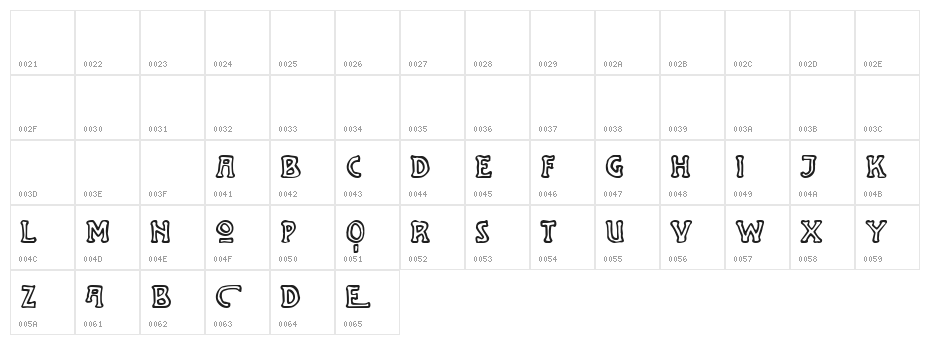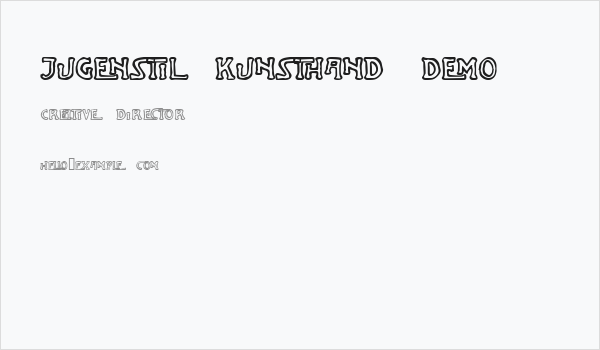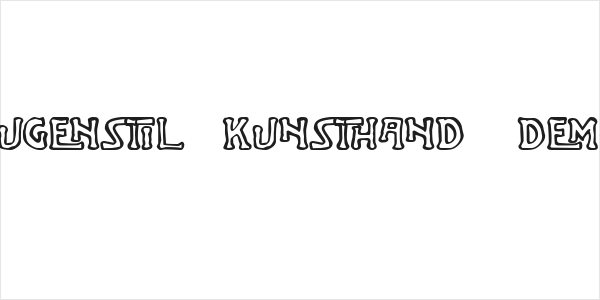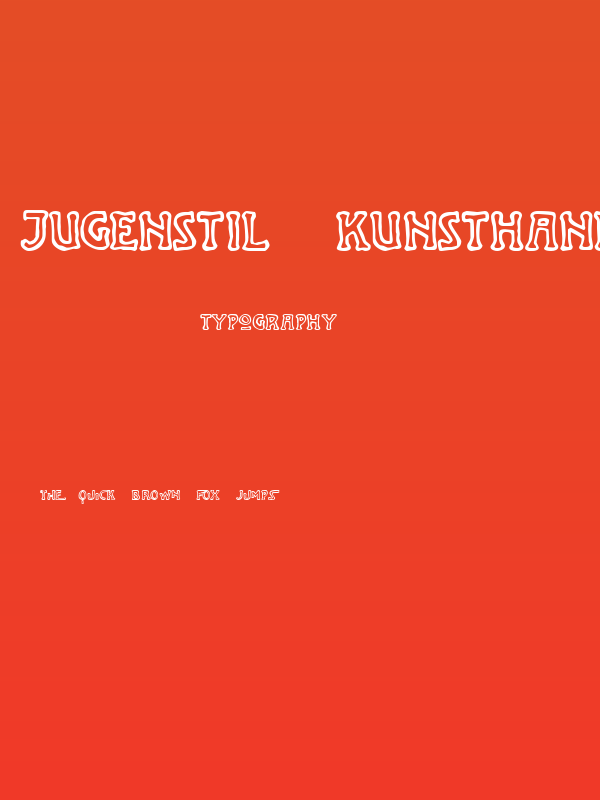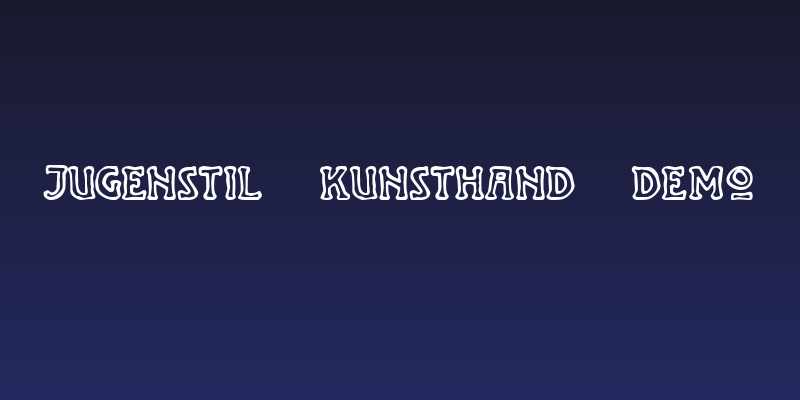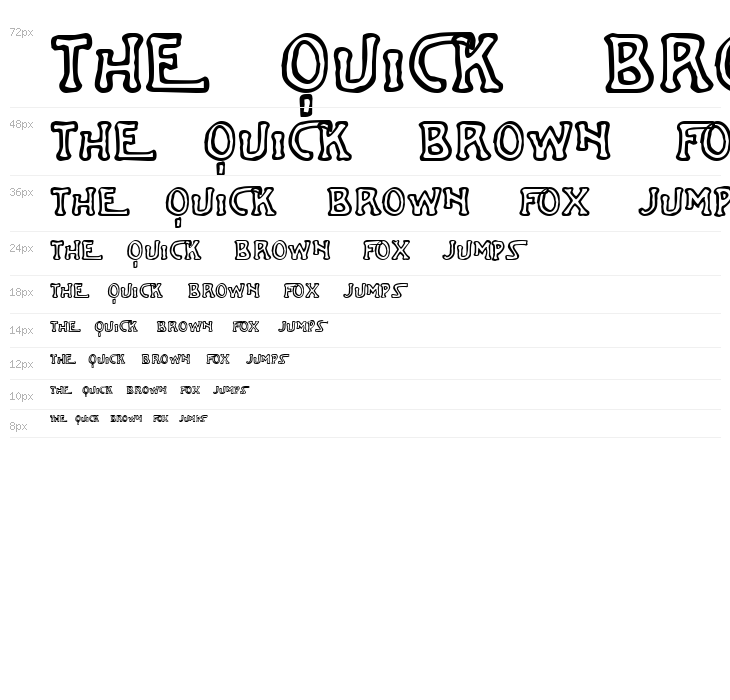
Jugenstil Kunsthand Demo Font
Jugenstil Kunsthand Demo Description
This font features a unique, artistic style with a hand-drawn appearance, reminiscent of early 20th-century design. The characters are bold and have a decorative outline that gives them a three-dimensional look. The uppercase letters are particularly striking, with exaggerated curves and flourishes that add to the font's artistic flair. The lowercase letters maintain the same decorative style, ensuring consistency throughout. The font's playful and creative nature makes it suitable for projects that require a touch of whimsy and elegance.
| Overall Style | Vintage, Decorative |
| Proposed Projects | Ideal for artistic posters, vintage-themed designs, creative branding, and decorative headings. |